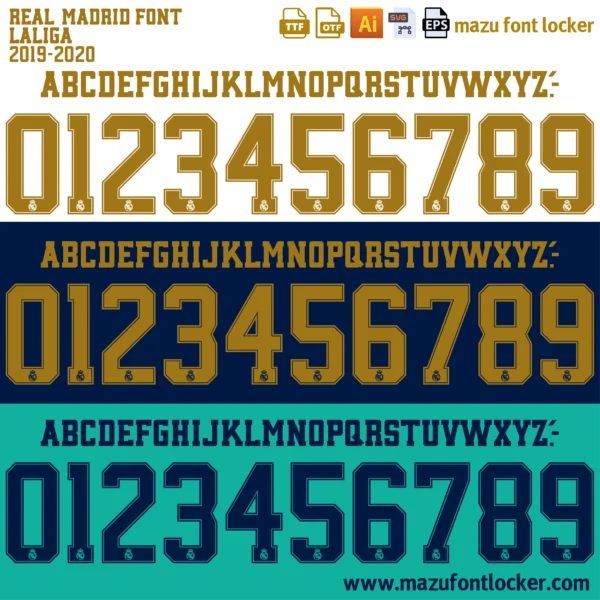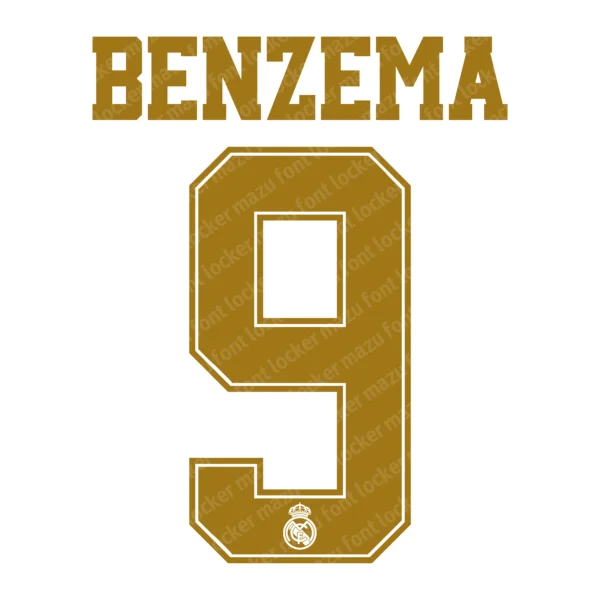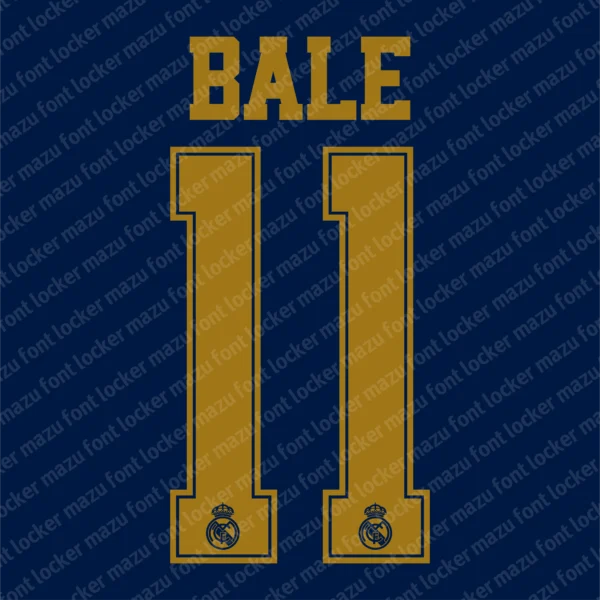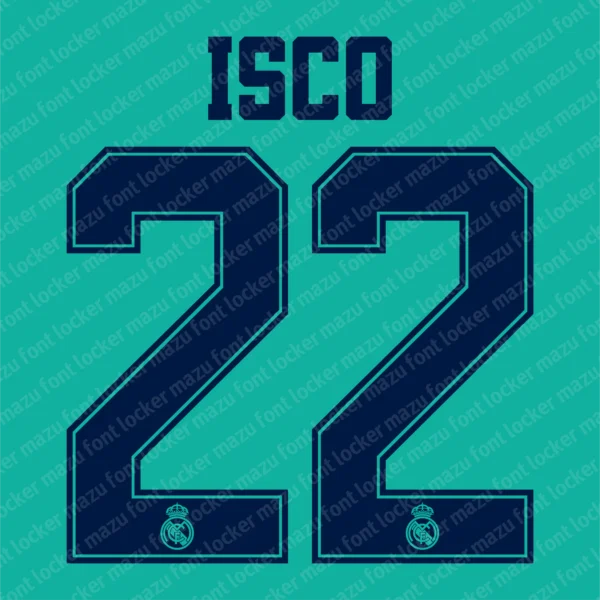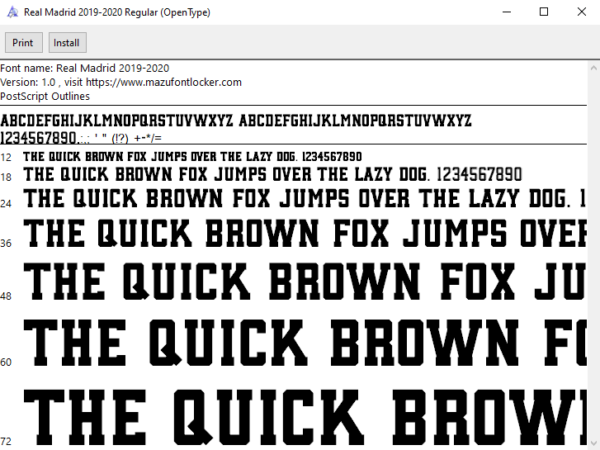
Real Madrid 2019-2020 Font Vector – Epic Legendary Los Blancos Masterpiece
Download the Real Madrid 2019-2020 Font Vector and powerfully recreate the bold, majestic, and ultra-dominant match-style lettering worn by the Spanish giants during their unforgettable 2019-2020 season. This font captures the legendary and commanding typography that embodies the fierce pure-white Los Blancos spirit, delivering unmatched authenticity, royal power, and epic prestige for premium jersey mockups and football designs.
Real Madrid 2019-2020 Font Vector – Authentic Los Blancos Typeface
Download the Real Madrid 2019-2020 Font Vector and powerfully recreate the bold and dynamic match-style lettering worn by the Real Madrid squad during their iconic 2019-2020 season. This font captures the strong, elegant, and commanding typography that embodies the passionate white-and-gold Los Blancos spirit, delivering unmatched authenticity for premium jersey mockups and football designs.
Why Choose Real Madrid 2019-2020 Font
This font stands out because of its sharp details and legendary club identity. Every letter and number is crafted to match the exact style used on the players’ shirts during the triumphant 2019-2020 La Liga winning season. Whether you are making realistic retro shirt templates or high-class football content, the Real Madrid 2019-2020 Font gives your designs that authentic Los Blancos royalty.
The letterforms in the Real Madrid 2019-2020 Font are tall, bold, and highly refined. The strokes have a strong yet elegant weight that looks powerful and prestigious on the back of jerseys while maintaining excellent clarity and sophistication.
The numerals use clean curves and firm edges, giving them a confident and premium appearance. This design ensures great legibility whether used in large print formats, digital mockups, or video content.
- Full uppercase A–Z and numbers 0–9 in authentic Real Madrid 2019-2020 style
- Special Real Madrid crest glyph for accurate shirt number detailing
- Multilingual Latin character support including diacritics
- Create highly realistic Real Madrid 2019-2020 jersey mockups with accurate lettering
- Includes the exact crest glyph placement used under player numbers